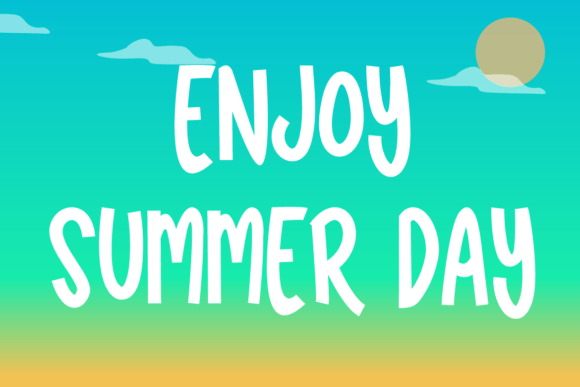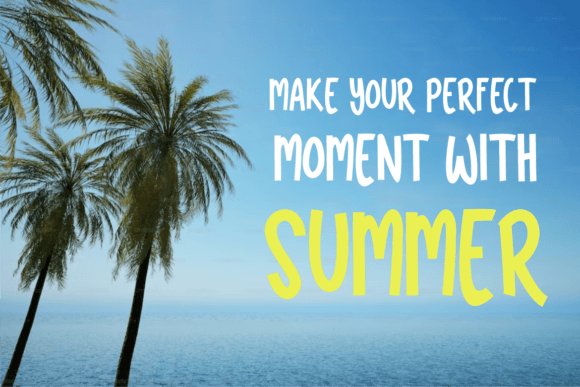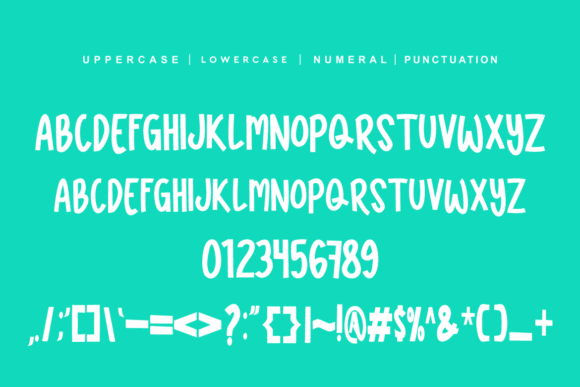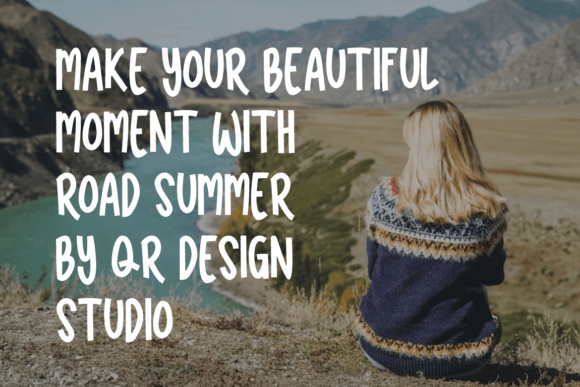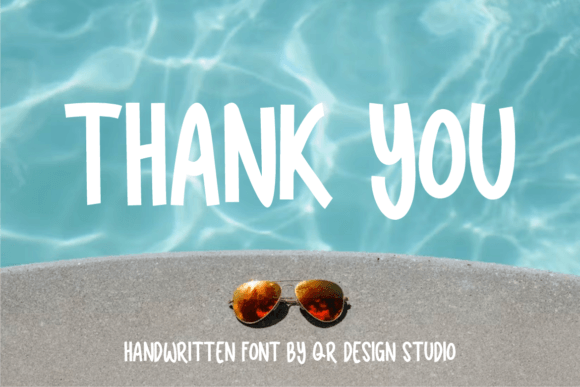
Introduction to Road Summer Font
Road Summer is a bold and authentic handwritten font.
The font is suitable for any branding project like logo, summer, greeting card, and many more Outstanding in a wide range of contexts.
Key Features of Road Summer Font
Why Choose Road Summer Font?